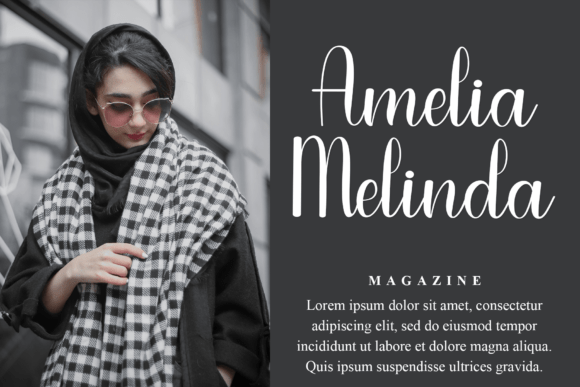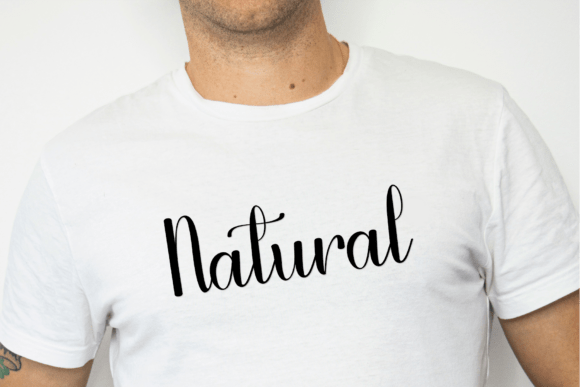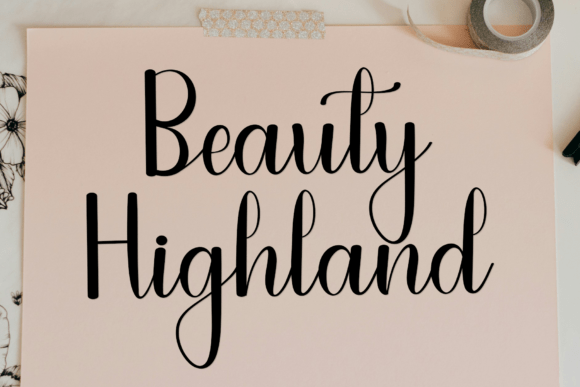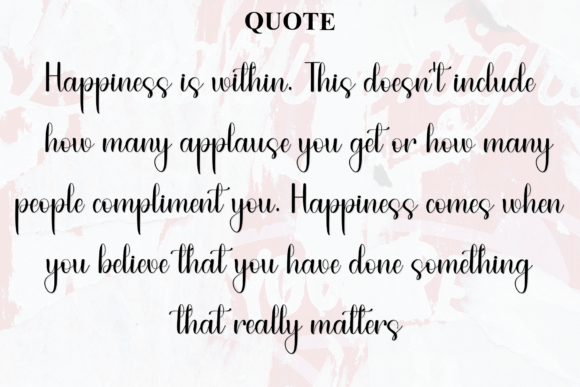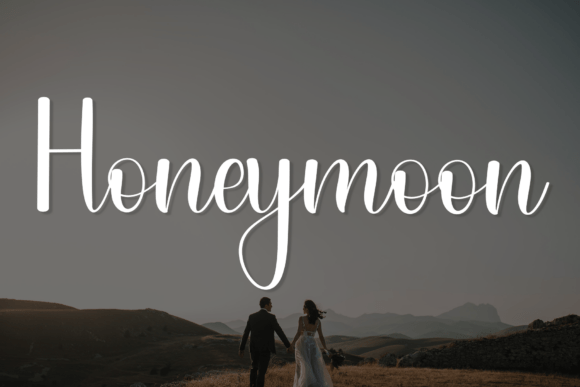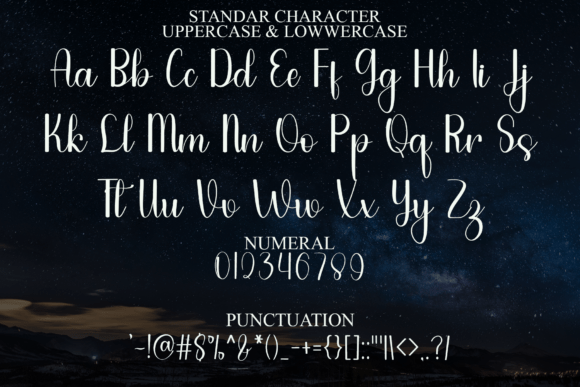
The Perfect Wedding Font: A Deep Dive into Anything Wedding
I’ll never forget the time I was working on a wedding invitation project, and my client asked me to find the perfect font to match their elegant and sophisticated theme. I scoured the internet, tried out countless fonts, but none seemed to fit the bill. That was until I stumbled upon Anything Wedding, a beautiful modern script font that stole my heart. In this article, I’ll share my experience with this stunning font, its features, and how to make the most of it in your designs.
A Personal Review: What I Love About Anything Wedding
Anything Wedding is a romantic and elegant modern script font designed specifically for celebratory occasions. Here’s what I love about it:
• ✨ Thin, graceful lines that exude sophistication and elegance
• ✅ Generous swashes that add a touch of drama and flair
• 💕 A beautiful, sweeping flow that gives it a heartfelt and feminine appearance
• 🎉 Perfect for wedding invitations, bridal shower materials, personalized stationery, and high-end event branding
While Anything Wedding is an amazing font, there are a few things to keep in mind:
• 🤔 It may not be the best choice for body text, as it’s a script font and can be difficult to read in large quantities
• ⚠️ Some swashes and glyphs may not work well in all design programs or platforms
Anything Wedding was designed with love and care by a talented font designer who wanted to create a beautiful, elegant script font for celebratory occasions. The designer drew inspiration from classic calligraphy and modern typography to create a unique and sophisticated font that’s perfect for wedding invitations, bridal shower materials, and more.
Q: What is Anything Wedding?
A: Anything Wedding is a romantic and elegant modern script font designed specifically for celebratory occasions.
Q: What can I use Anything Wedding for?
A: You can use Anything Wedding for wedding invitations, bridal shower materials, personalized stationery, high-end event branding, and more.
Q: Is Anything Wedding easy to read?
A: Anything Wedding is a script font, and while it’s beautiful, it may not be the best choice for body text. It’s best used for headings, titles, and short paragraphs.